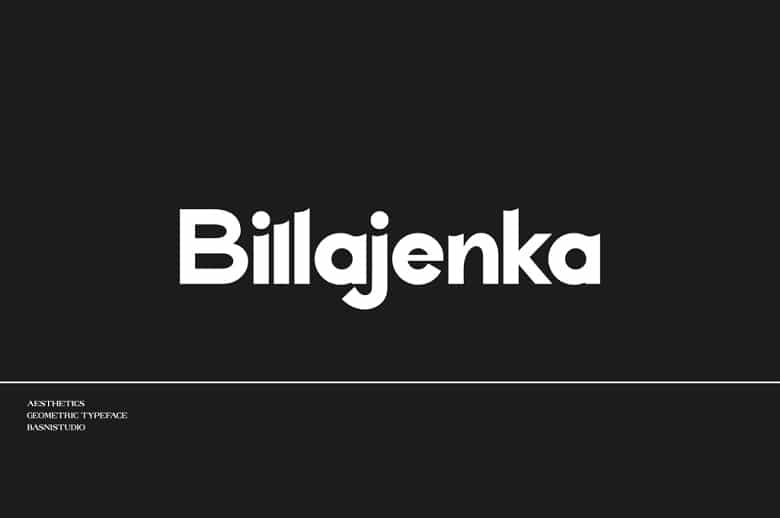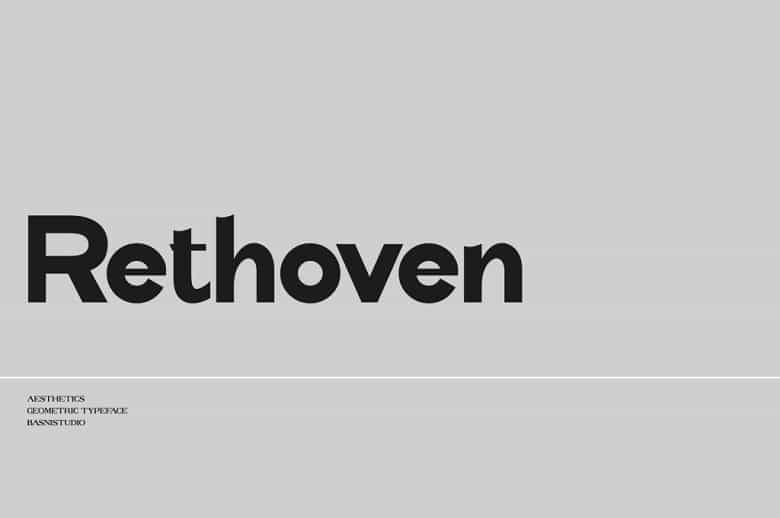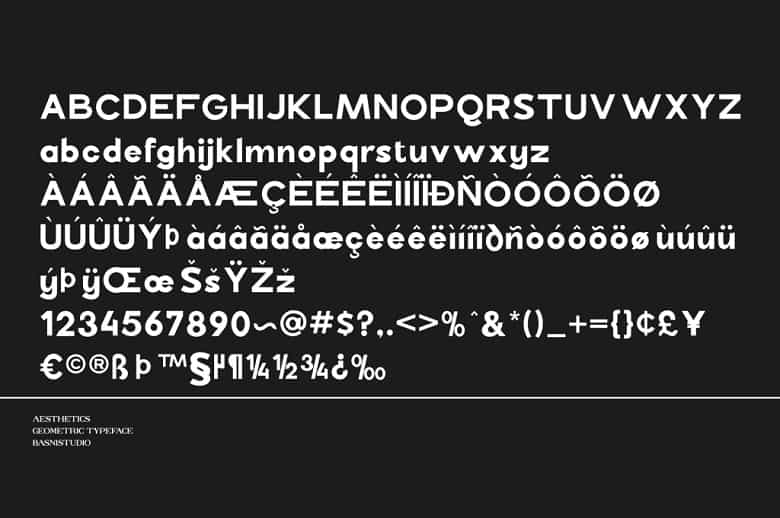
Billajenka is an aesthetics geometric sans serif font, created with Precision, ideal for branding, websites and editorial designs. Thus, it covers all the Characters’ letters, multilingual support, punctuation, and binding. almost all is achievable when working with software that implements OpenType.